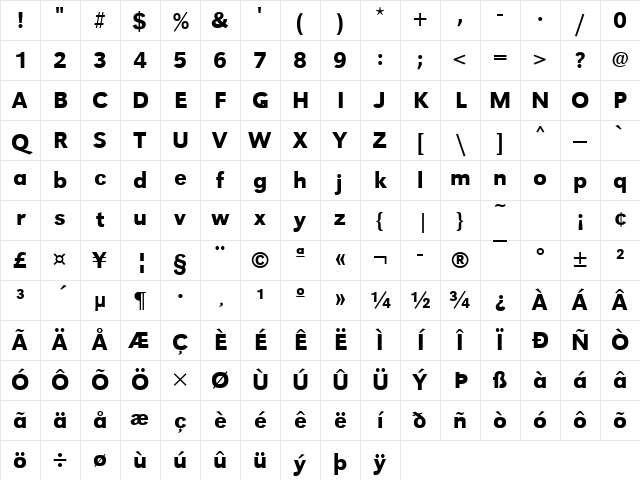
URWGroteskTMed Regular
URWGroteskTMed Family
URWGroteskTMed Regular
Complete URWGroteskTMed Regular glyph index. Displaying only characters natively supported by URWGroteskTMed Regular font.
Design Context for URWGroteskTMed
URWGroteskTMed takes a clean, functional approach - its unadorned letterforms prioritise legibility and work reliably across screen and print environments.
Font Pairing: Works well alongside a characterful serif or display font that can carry the expressive load while URWGroteskTMed handles the functional copy.
Pro Tip: Use URWGroteskTMed for UI labels, navigation, and short-form body copy where clean legibility is the priority.